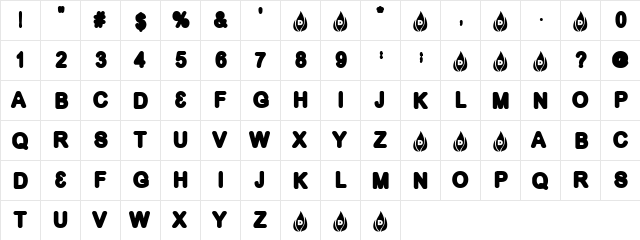
Metal Guru Regular
Design Context for Metal Guru Typeface
Metal Guru offers clean, dependable letterforms without strong stylistic allegiance, making it a practical choice for designers who need flexibility.
Pro Tip: Use Metal Guru in both headline and body roles to test its range before committing to a single application.